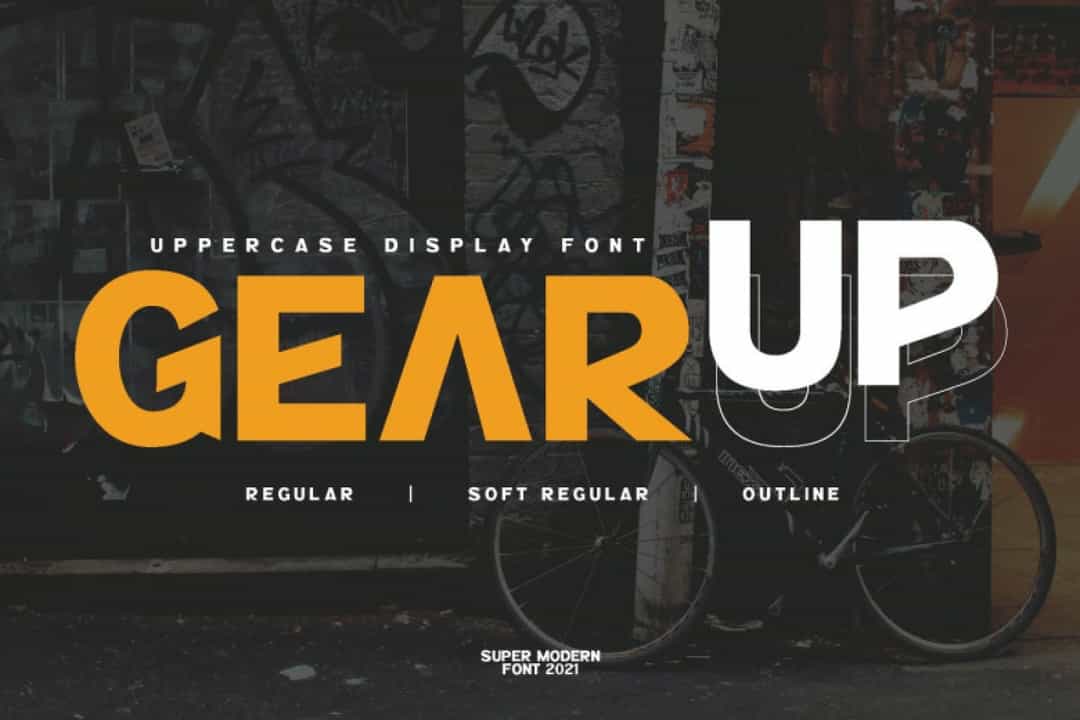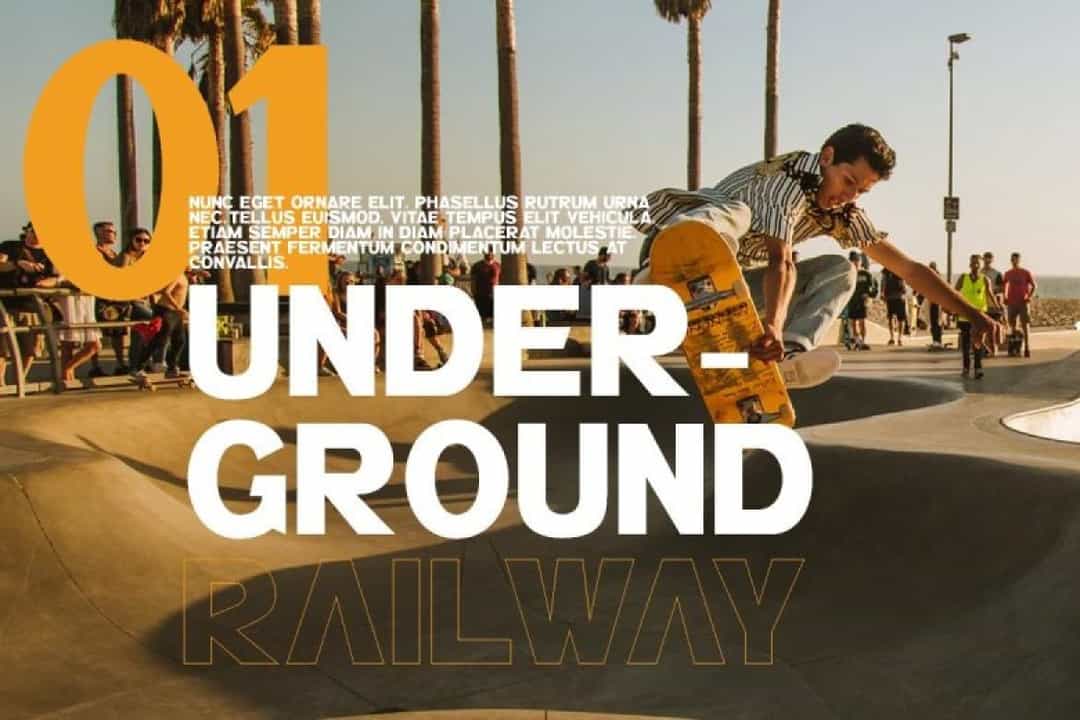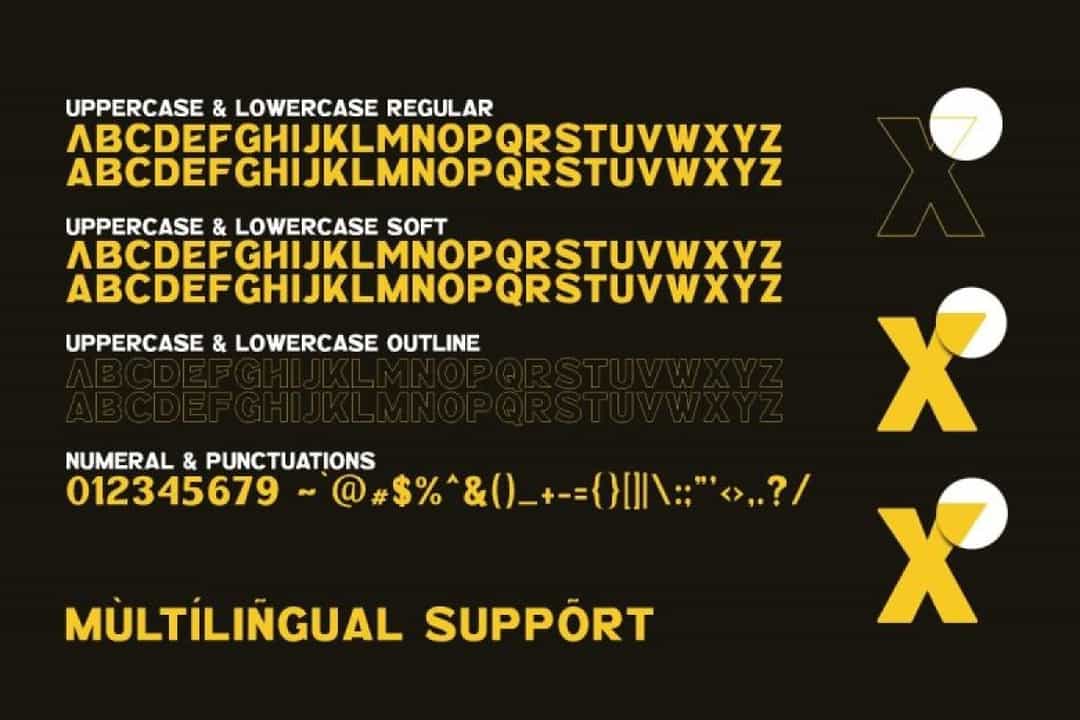
GearUp is an elegant modern sans serif font family that makes an eye-catching statement about your business or corporate endeavors. Simply incorporate this versatile font family into your creative ideas and watch as it stands out!